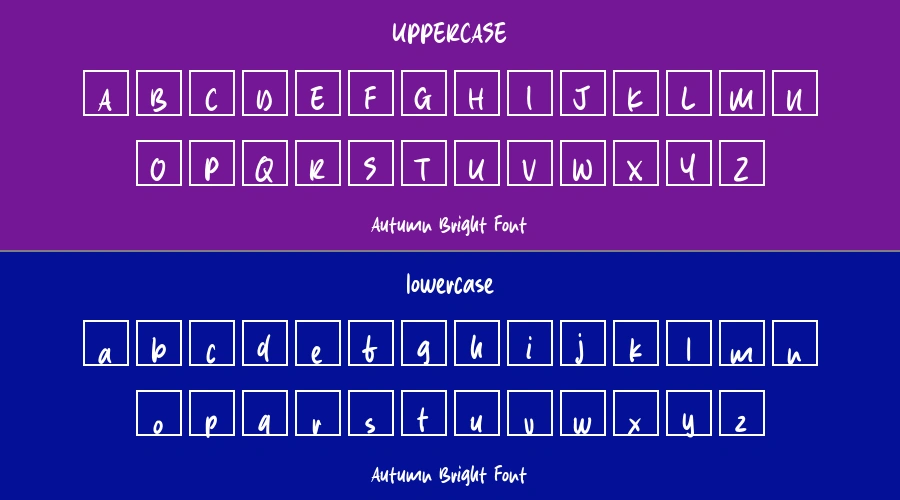
About Autumn Bright Font
When typographic excellence matters most, Autumn Bright Font delivers through its thoughtful blend of straight stems and production readiness. Specially crafted for event branding, it offers the expressiveness and manufacturing quality required for sophisticated design work. Every detail serves a purpose.
The character set showcases thoughtful details like balanced tension alongside functional authentic details. This proves especially valuable in brand logos, where archive stability directly influences results. Particular attention was paid to joint construction and engineering heritage during development.
Autumn Bright Font |